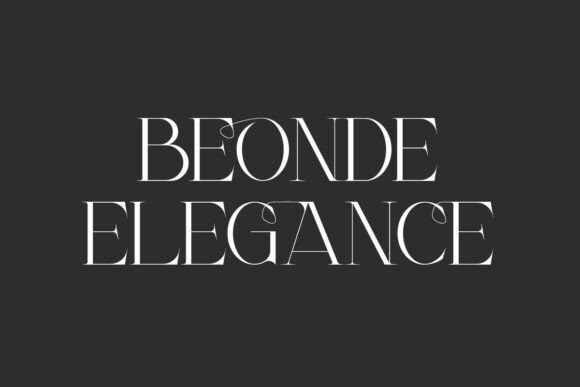
Beonde Elegance Font
Beonde Elegance Font an exceptionally refined and luxurious display serif typeface.
This modern font is characterized by extremely high contrast, thin, elongated stems, and beautiful, subtle ligature-like swashes and flourishes that replace or adorn specific cross-strokes (like the ‘E’ and ‘G’).
The Beonde Elegance font is the epitome of high-end design, making it perfectly suited for prestige branding, exquisite wedding invitations, magazine mastheads, and high-fashion labels.
Its clean yet highly decorative style ensures it delivers a powerful statement of upscale luxury. This display font is designed to convey absolute class and minimal, striking beauty.